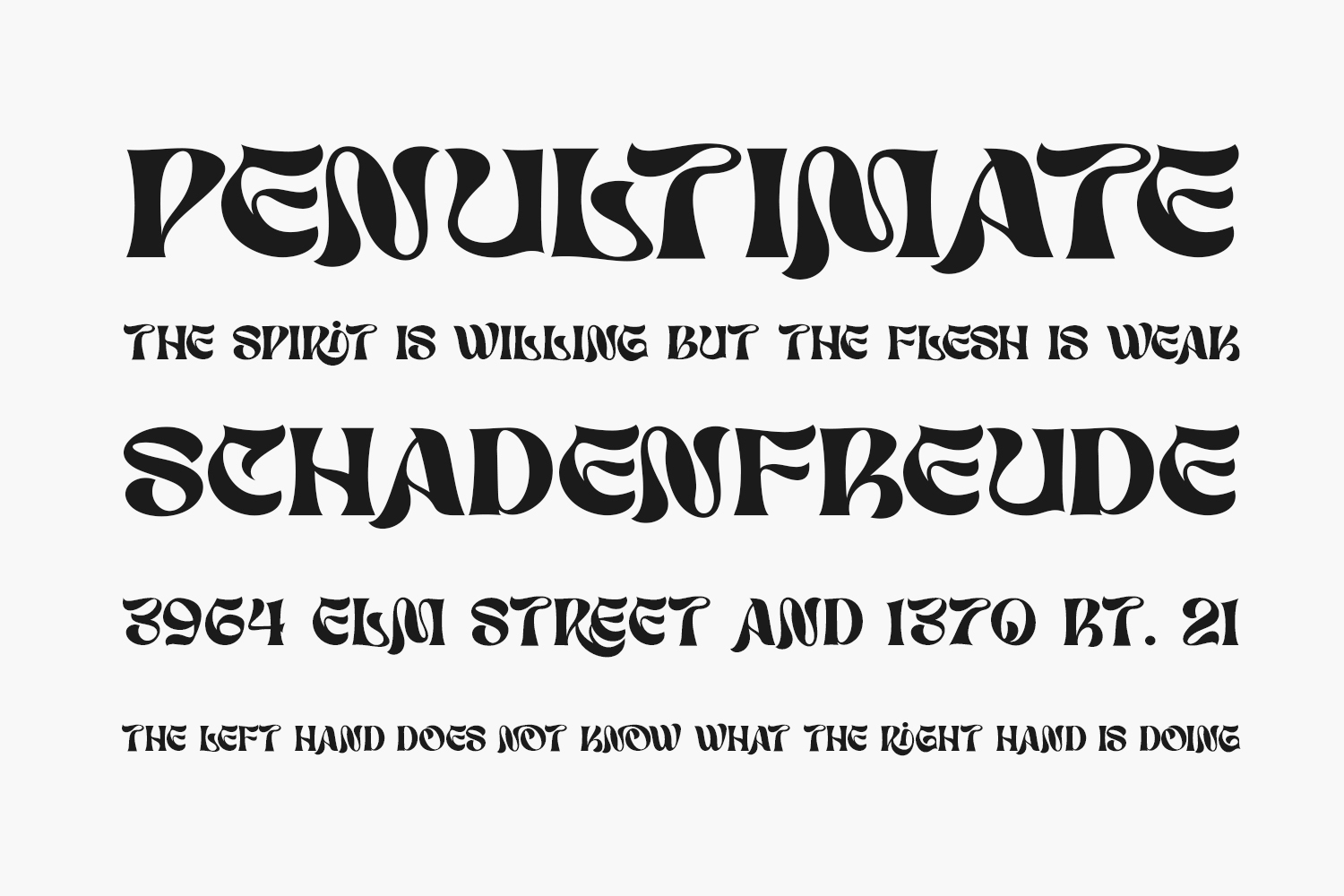
Lostar Free Font is a modern take on the classic serif style, with sleek and elegant lines that add a touch of sophistication to any design. Its unique characteristics give it a distinct and contemporary feel, making it perfect for headlines, titles, and display text. This versatile font can be used for a wide range of projects, from branding to editorial design.